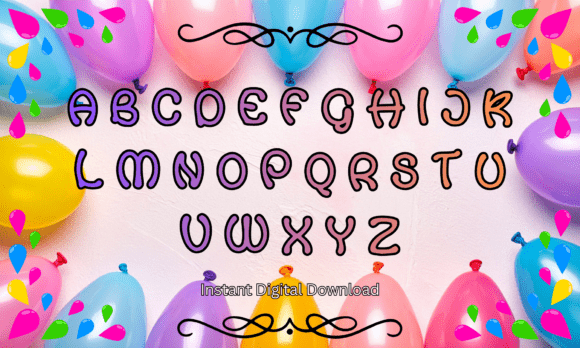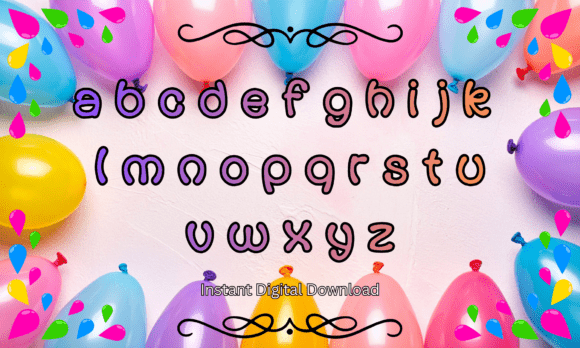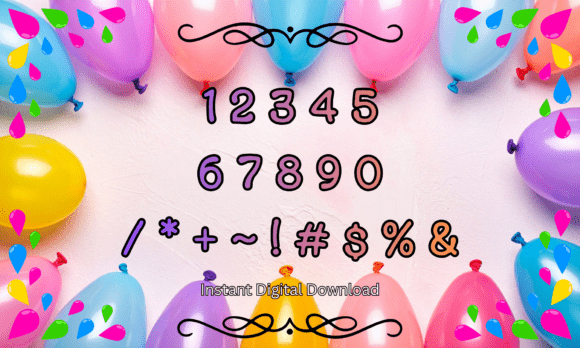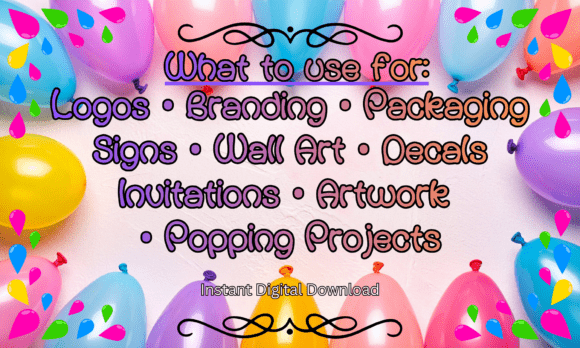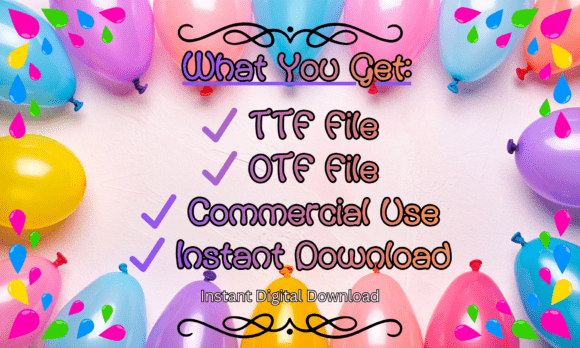
Bring Your Designs to Life with the Balloon Pop Font
Have you ever found yourself brainstorming ideas for a kid’s birthday party or a fun design project, only to be stuck on the perfect font to match the playful vibe? That’s where the Balloon Pop Font comes in – a vibrant and cheerful display font that’s guaranteed to bring a smile to anyone’s face.
Perfect for creating bright, eye-catching designs, the Balloon Pop Font is a must-have for designers looking to add a pop of fun to their projects. With its rounded bubble lettering and bright, colorful aesthetic, this font is sure to make any design stand out. Whether you’re creating party decorations, stickers, or branding logos, the Balloon Pop Font is the perfect addition to your design toolkit.
- Unique Characteristics: Distinctive balloon-like shapes and vibrant colors make it ideal for playful, whimsical, and celebratory designs.
- Font Style: A fun, handwritten font with a mix of uppercase and lowercase letters, numbers, and punctuation – perfect for creating eye-catching headlines and titles.
Review: Balloon Pop Font
Overall, I was excited to dive into the Balloon Pop Font and see what it had to offer. Here’s my honest take on this design element.
- The playful, whimsical vibe of the font is perfect for creating a lighthearted and fun atmosphere. It’s ideal for kids’ products, party invitations, or any design that needs a touch of magic.
- The varied letterforms and balloon-inspired shapes make the font visually interesting and engaging. It’s sure to grab the viewer’s attention.
- The font is highly customizable, allowing designers to adjust the size, color, and spacing to suit their project’s needs.
- The font may not be suitable for formal or professional designs, as it’s quite playful and attention-seeking.
- Some letter combinations may be difficult to read, especially at smaller font sizes. This could impact the overall legibility of the text.
- The font’s balloon-inspired design may not be to everyone’s taste, and some users may find it too childish or gimmicky.
Overall, I think the Balloon Pop Font is a fun and creative option for designers looking to add some personality to their projects. While it may not be suitable for every design, it’s sure to bring a smile to the faces of those who use it.
The Balloon Pop Font is commonly used for:
- Children’s birthday parties and celebrations
- Marketing and advertising campaigns
- Wedding decorations and invitations